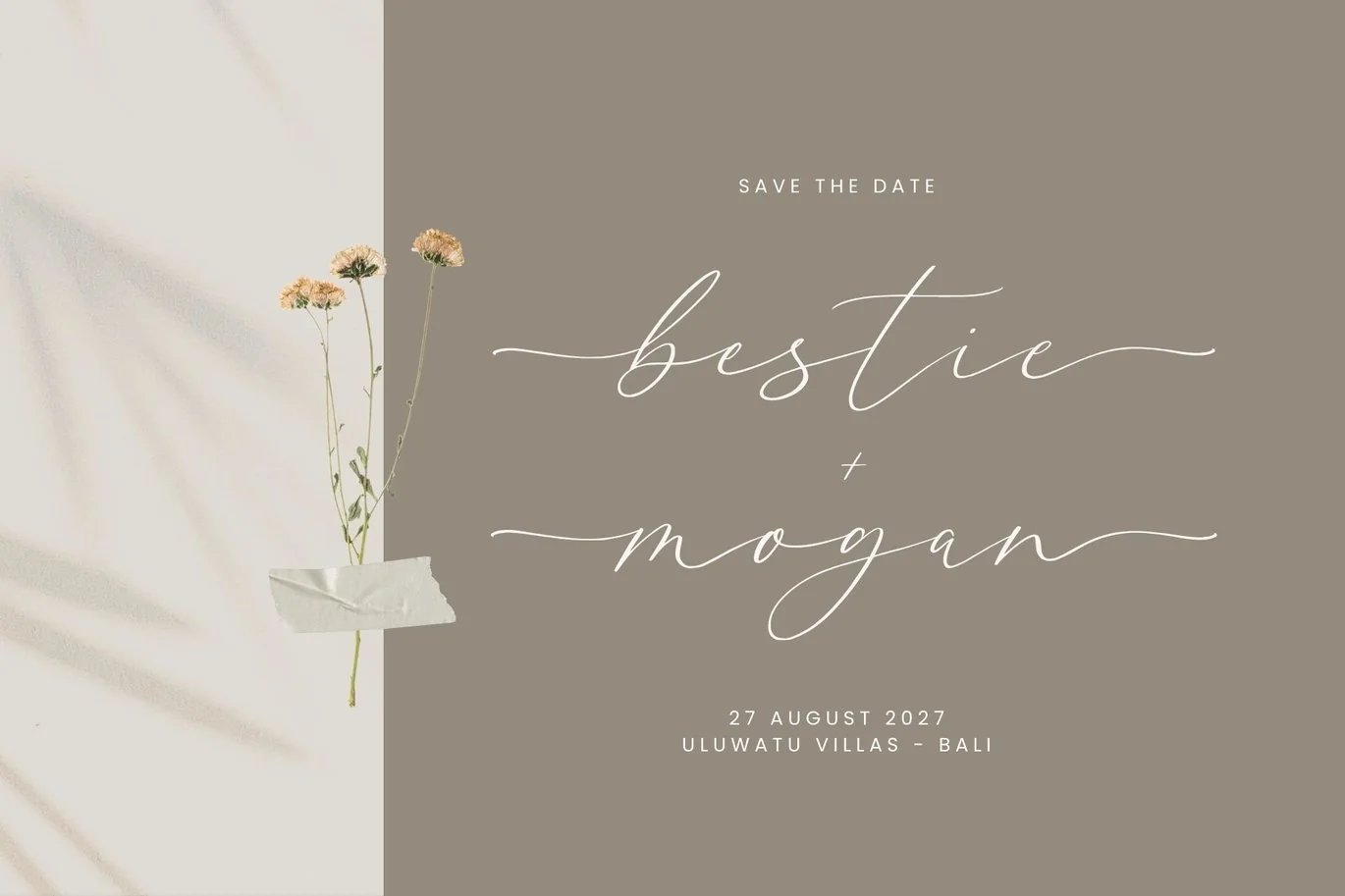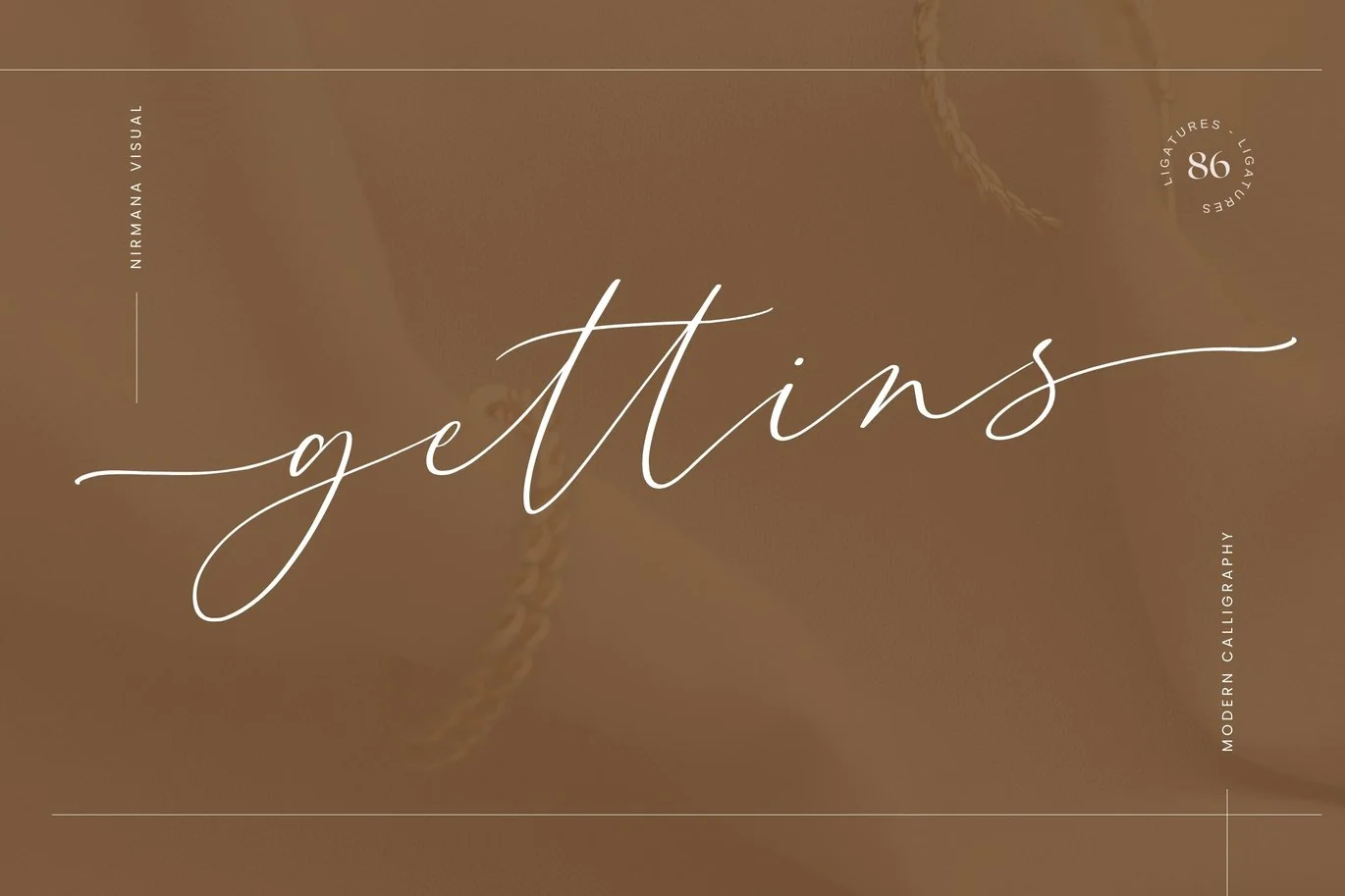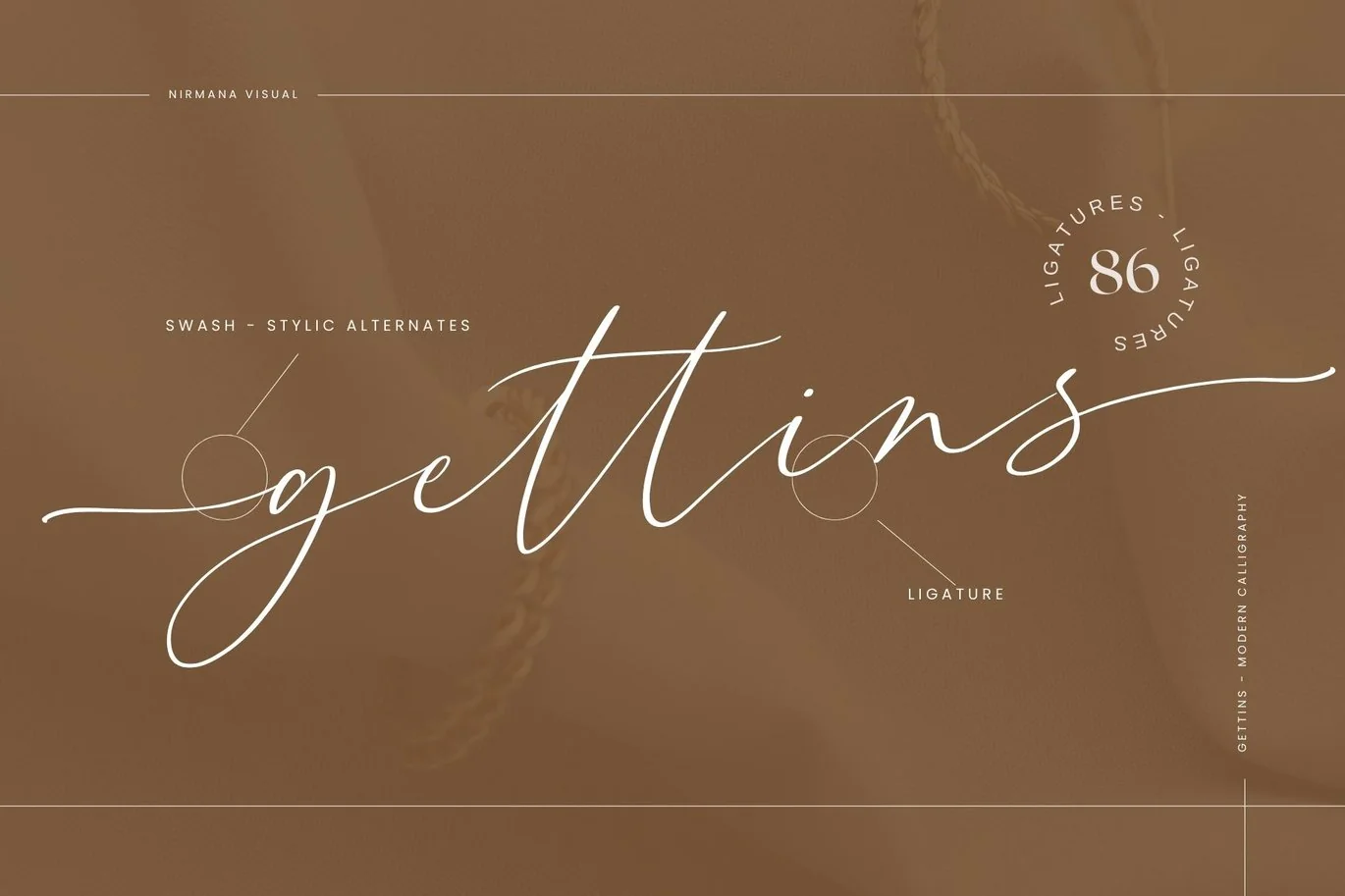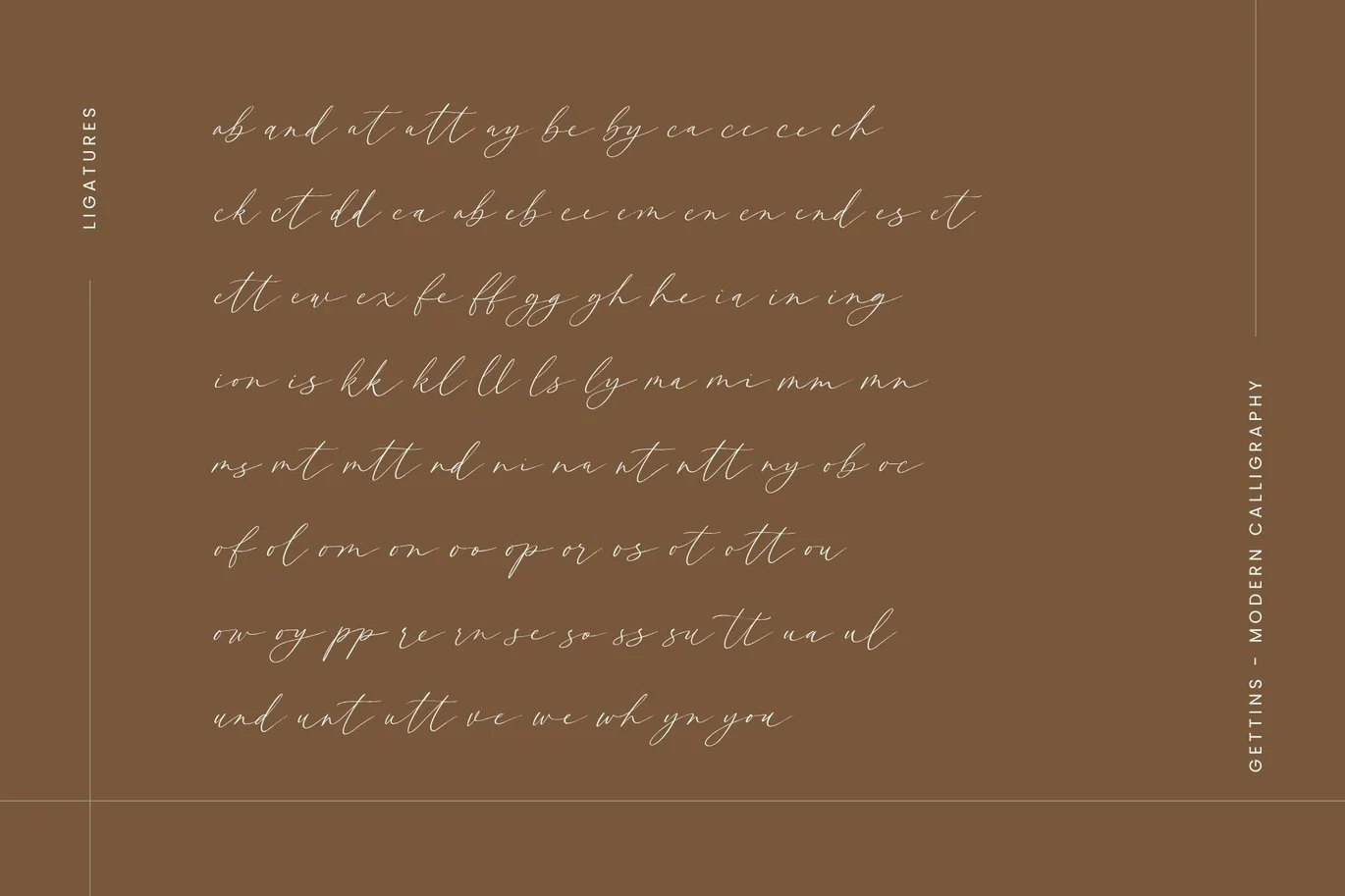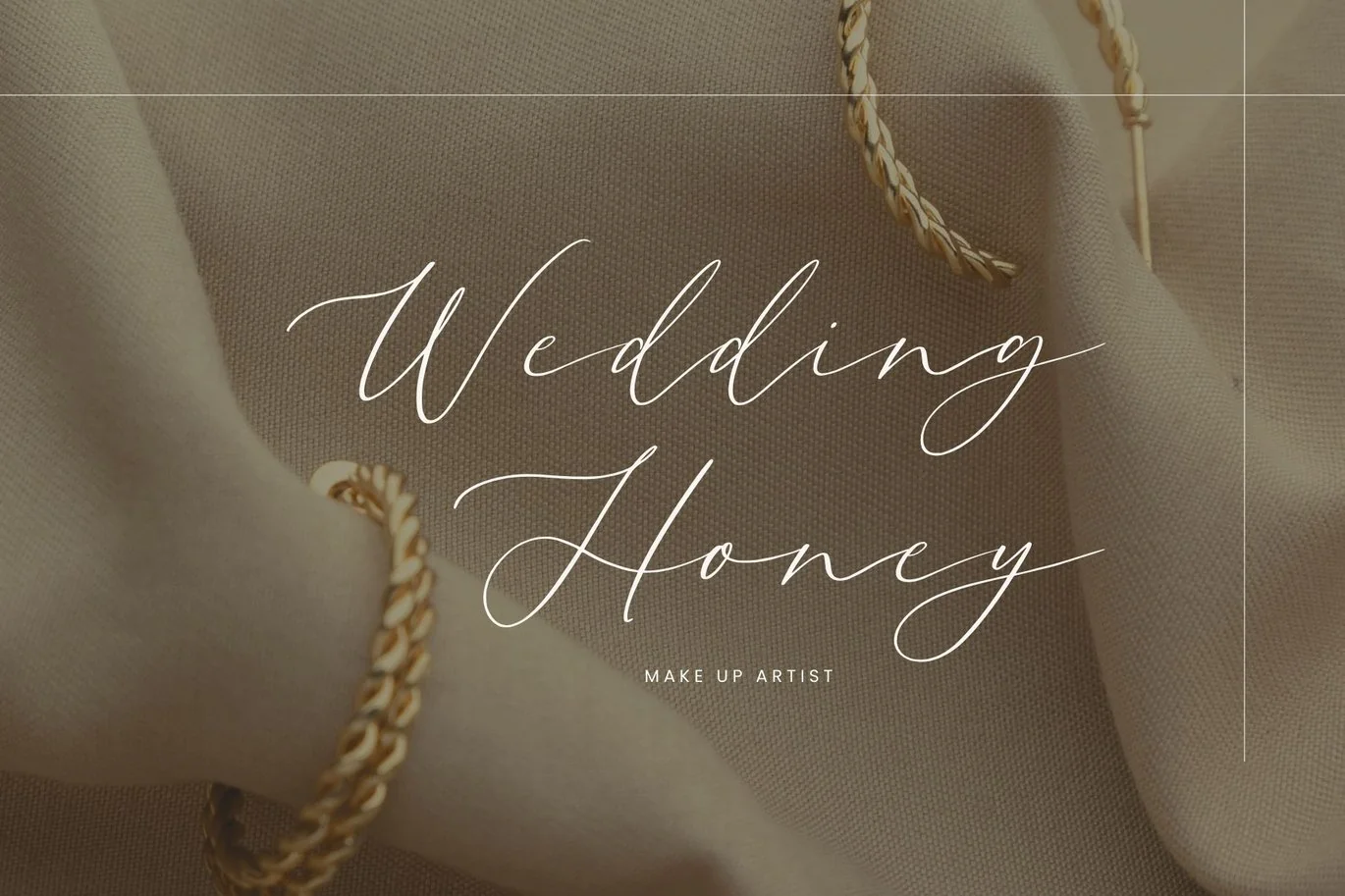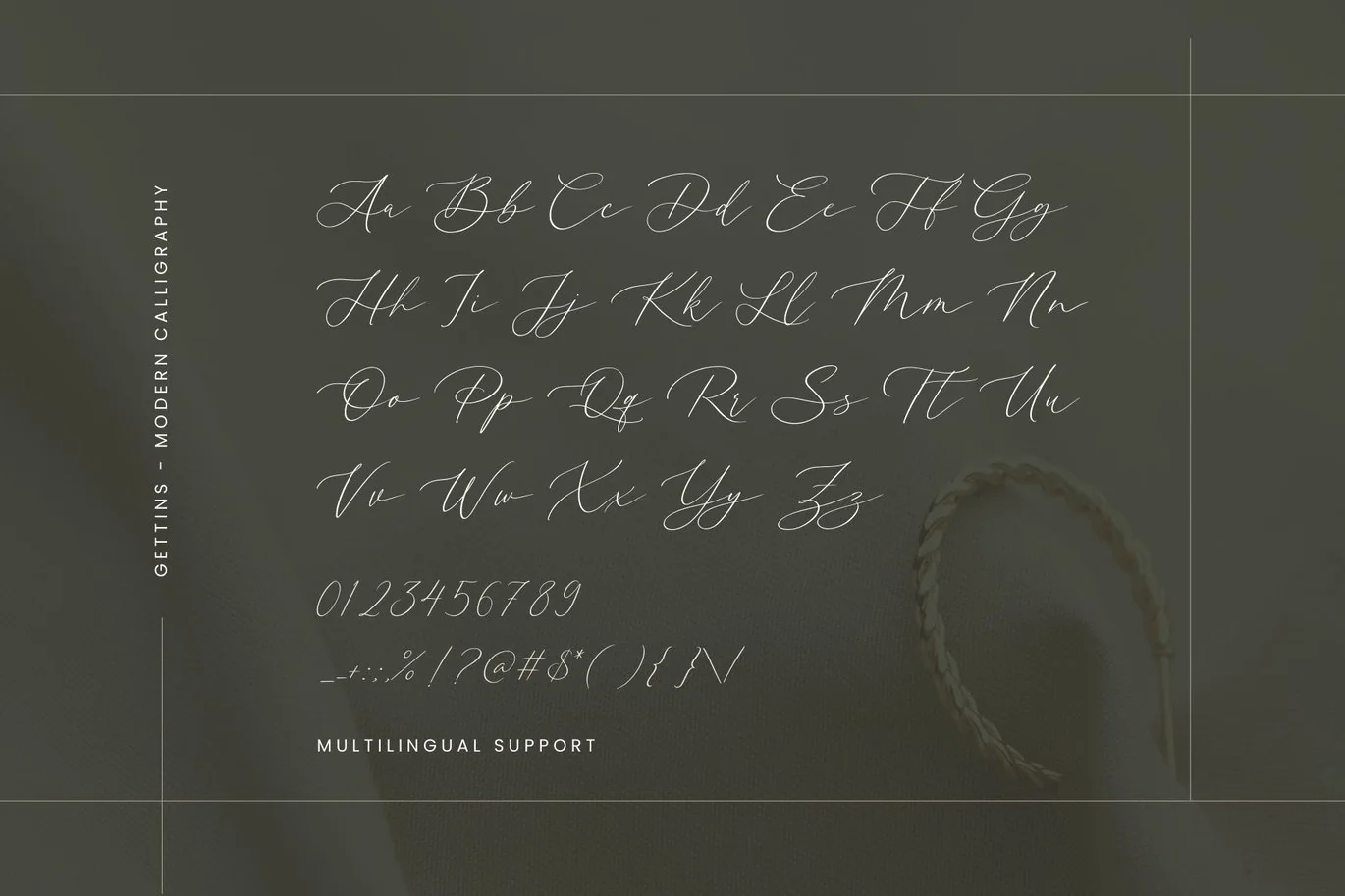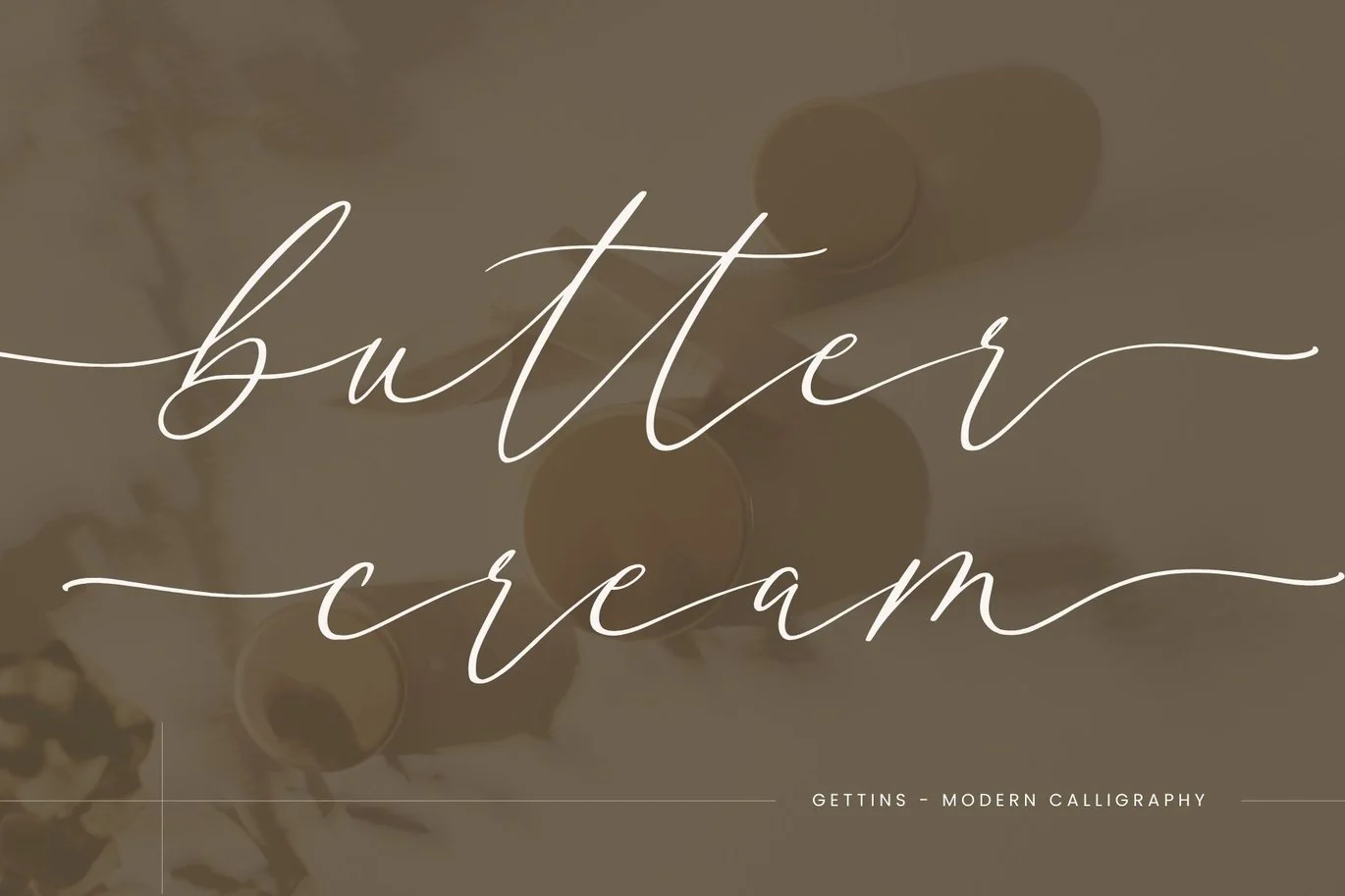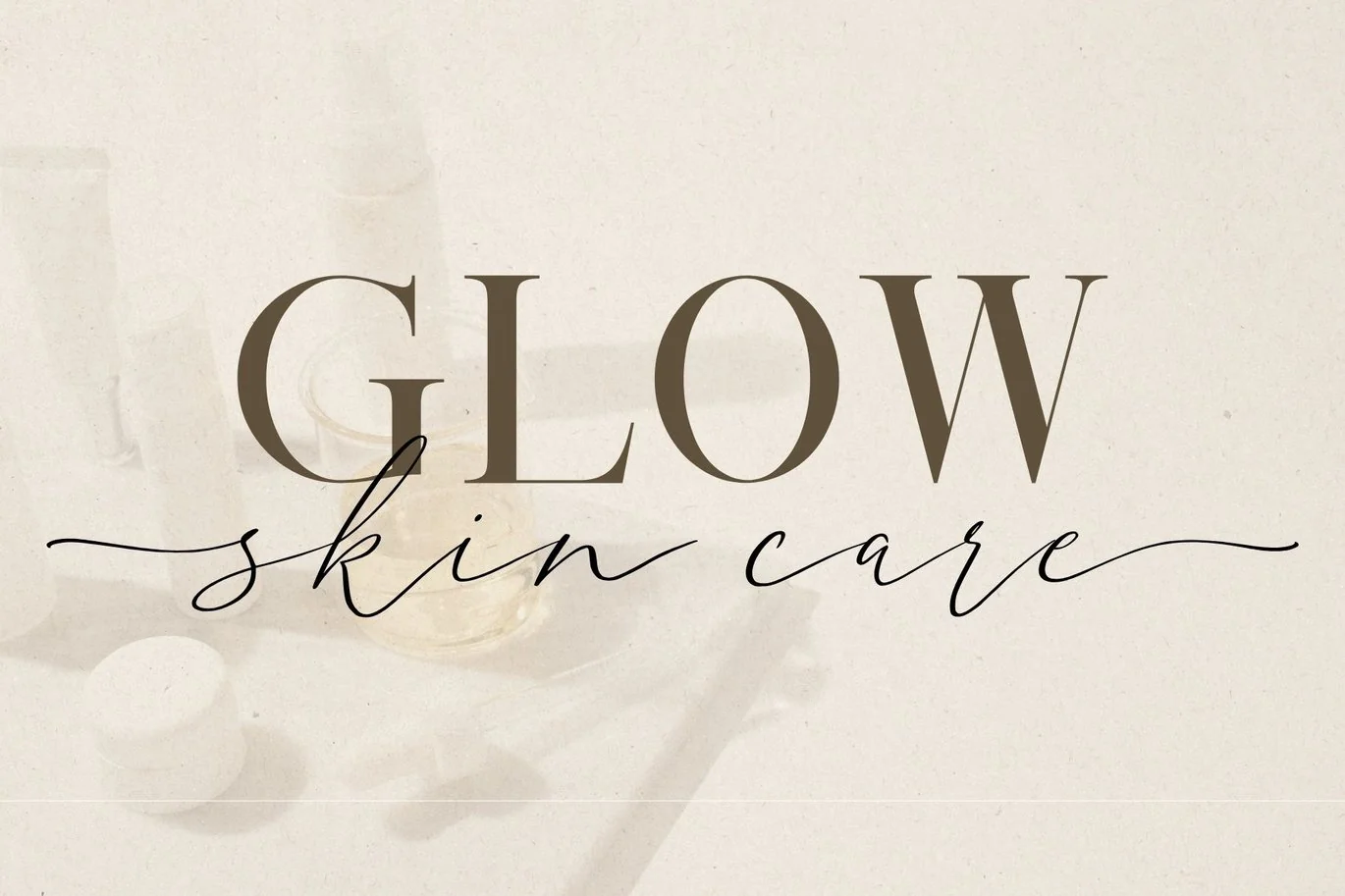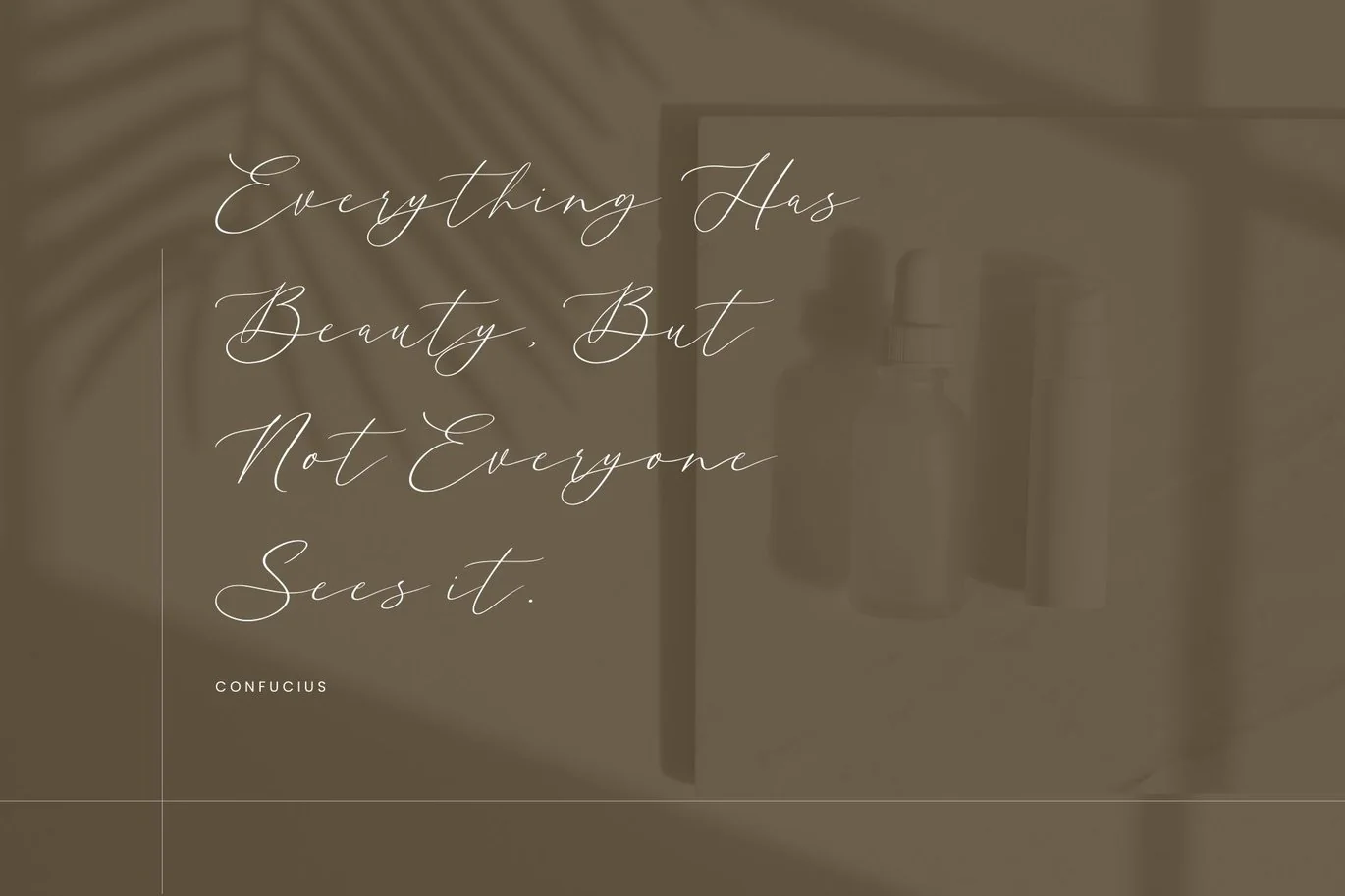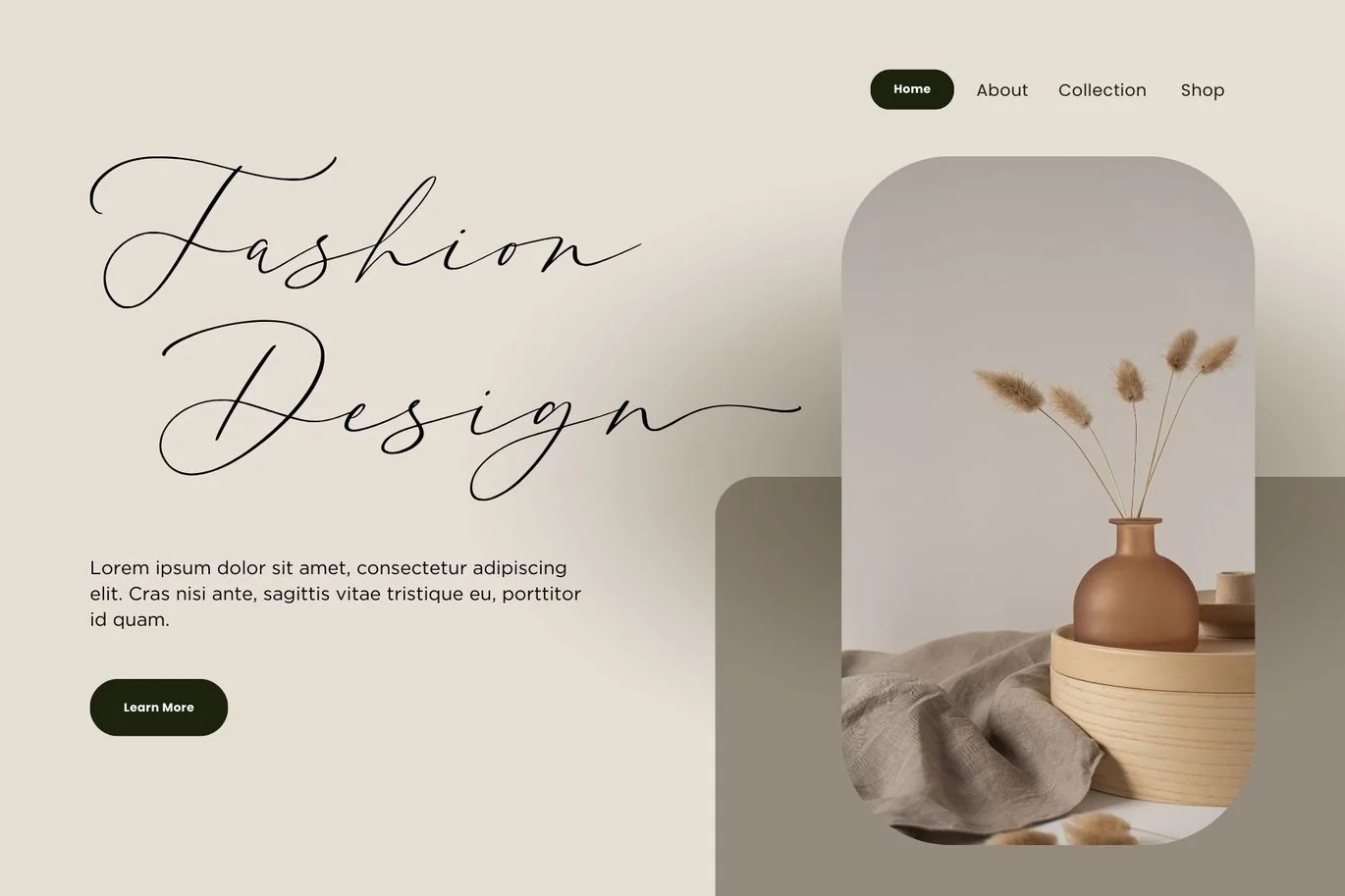
Gettins – Wedding font
Gettins – Wedding font is a Natural handwriting modern calligraphy font.
full set of lowercase and uppercase letters, numerals and punctuation, multilingual symbols, lowercase beginning and ending swashes.
80+ ligatures giving realistic hand-lettered style.